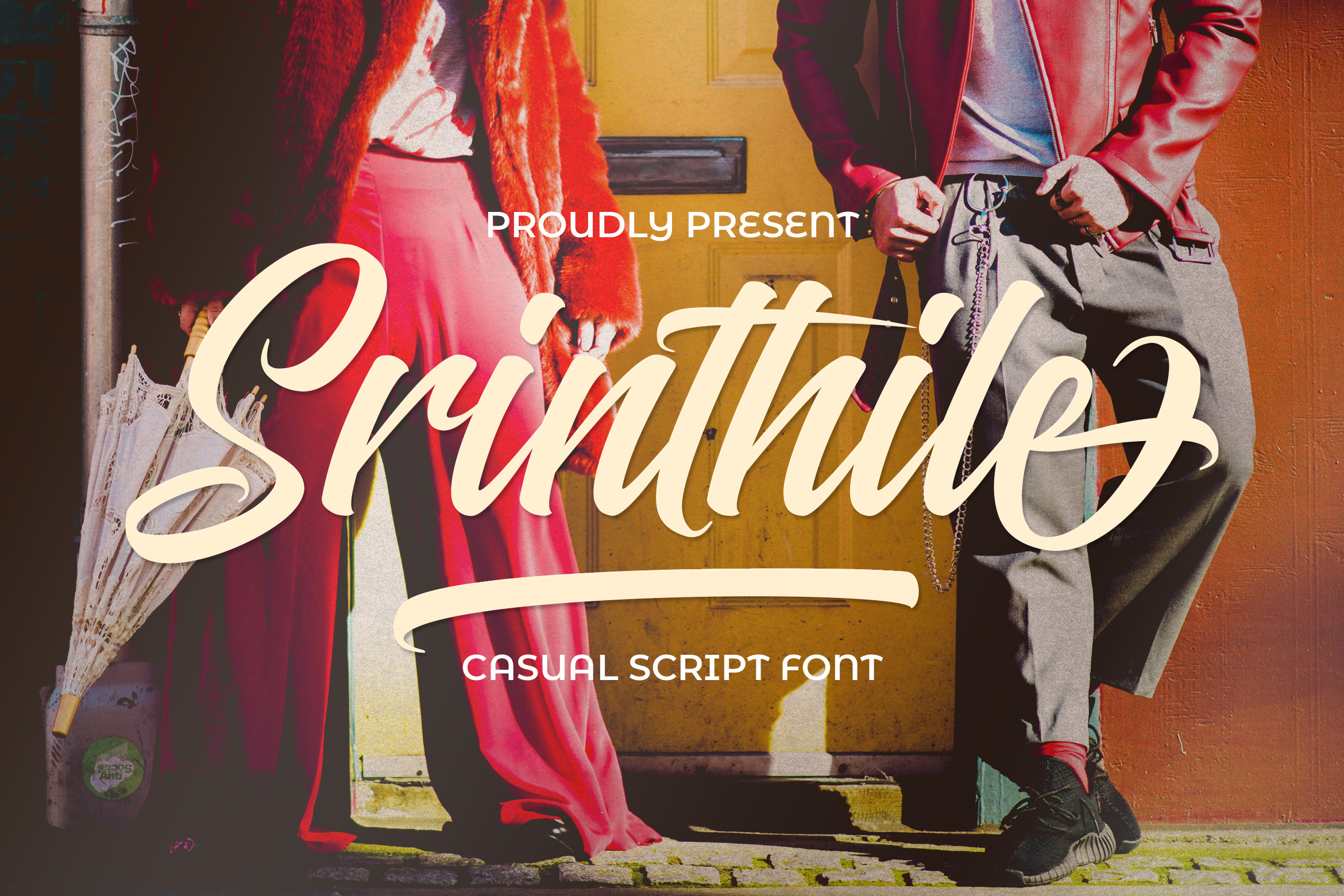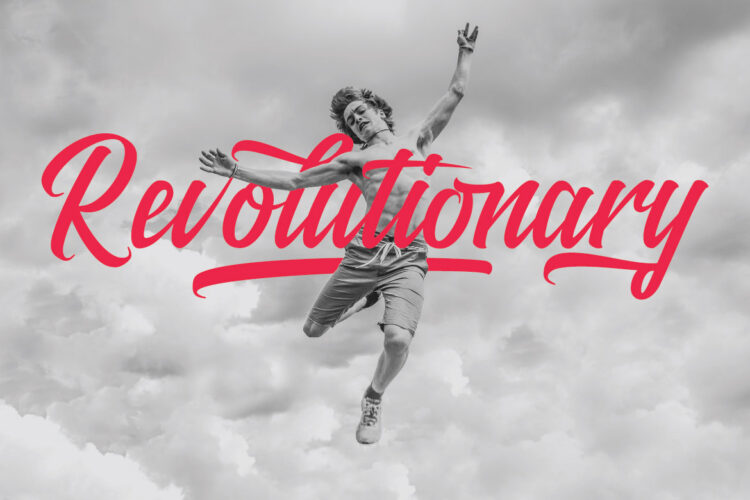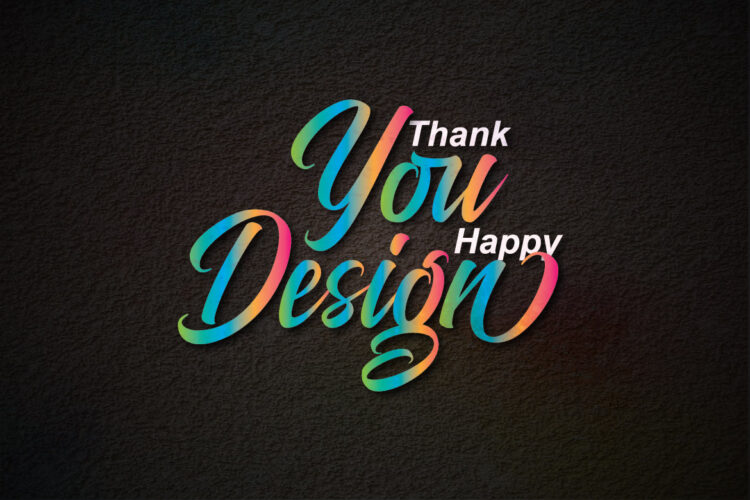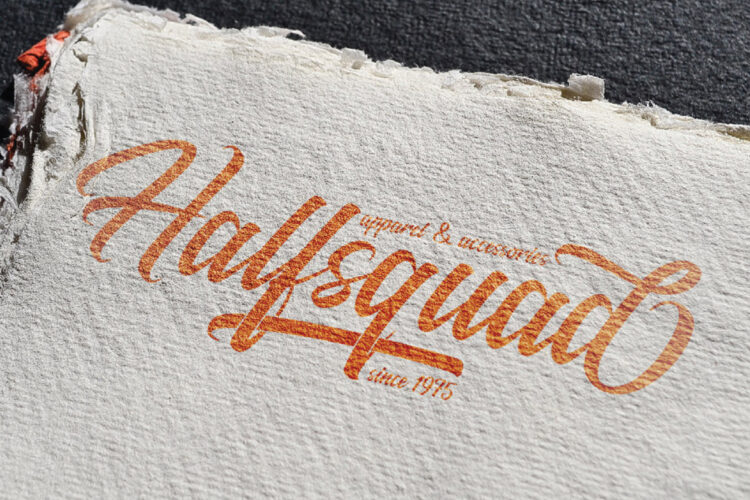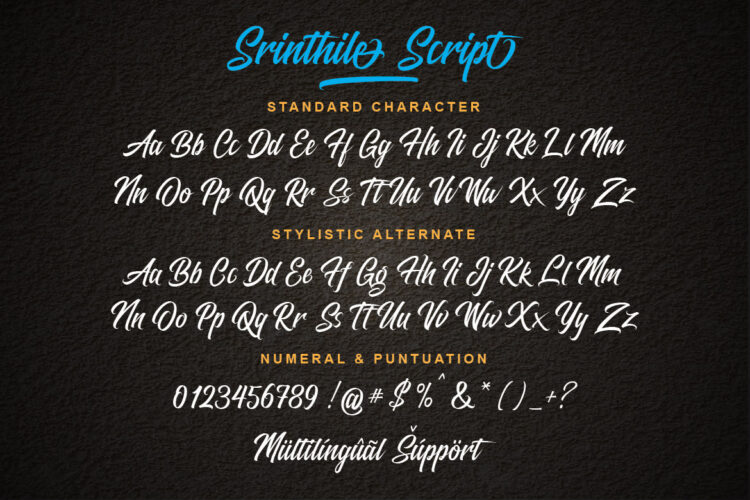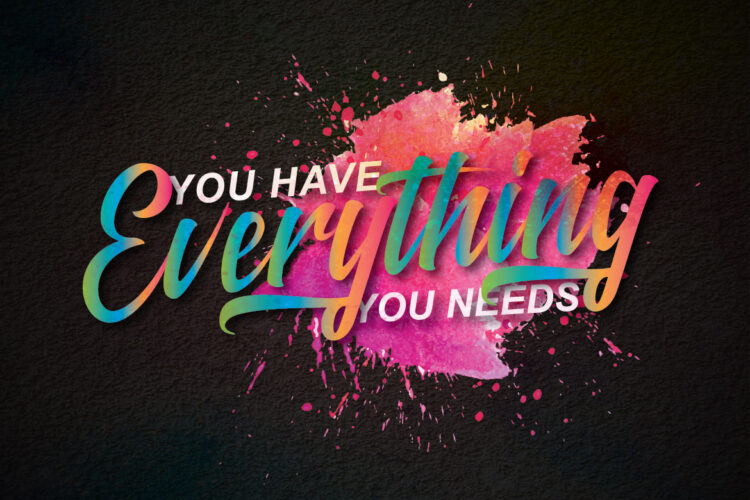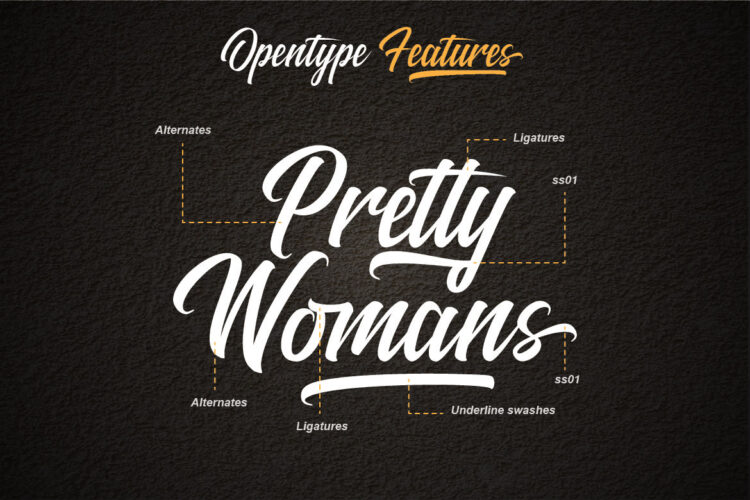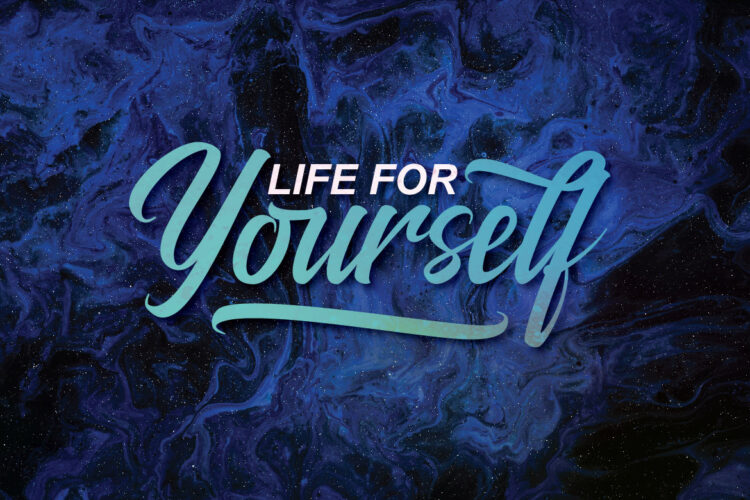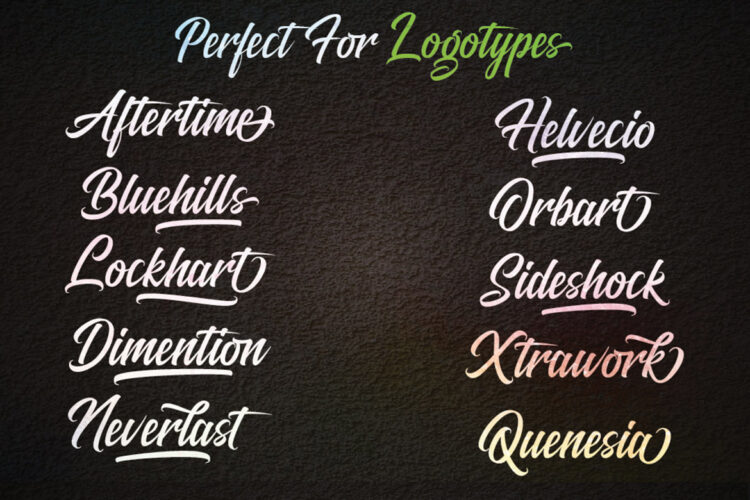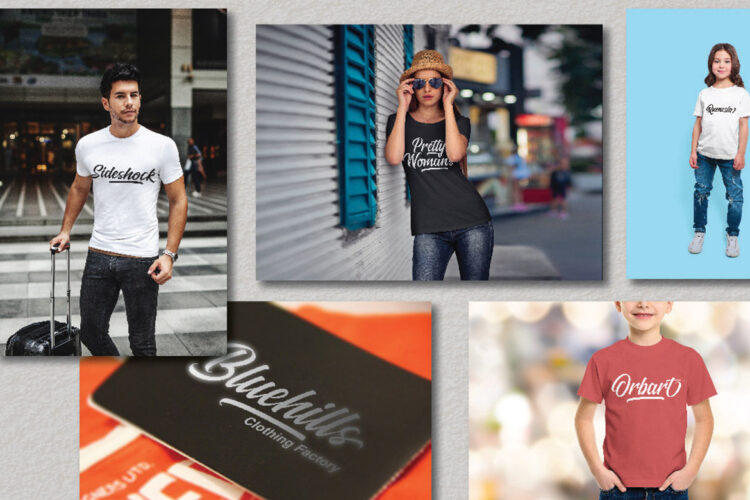
Srinthile Script is a casual script typeface with stylist style, clean, and great movement this typeface and allow you to make lettering and awesome logotype quickly and easily.
Srinthile Script comes with uppercase, lowercase, numerals, punctuations and so many variations on each characters include opentype alternates, common ligatures and also underline swash.To access the underline swashes you just press Number + underscore after the last letter. There are 10 styles of underline swashes to add to your cool project. Perfect to use for Logotype, Letterhead, Poster, Label packaging and etc.
Srinthile Script